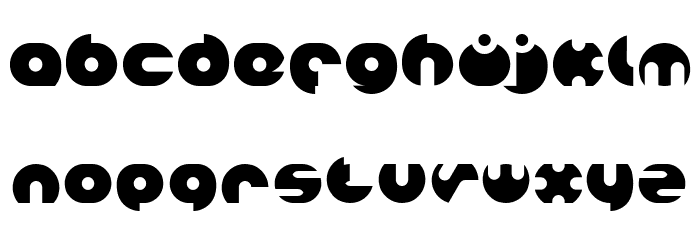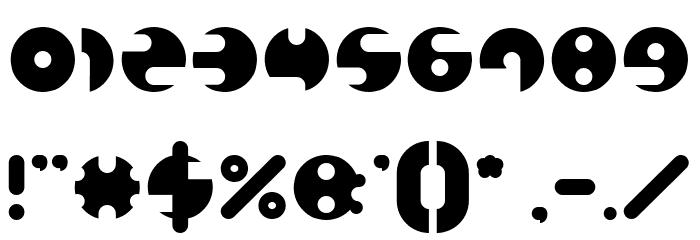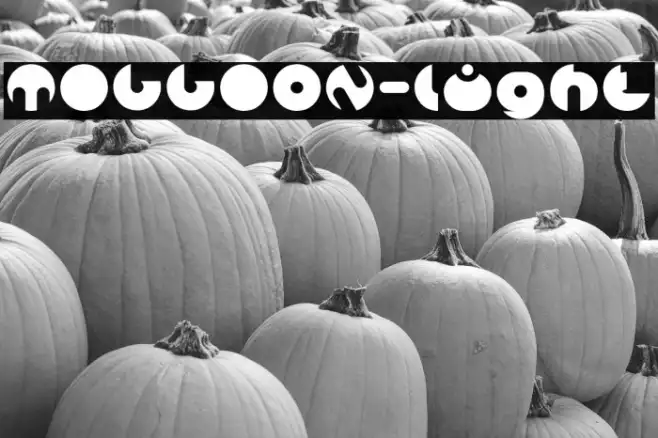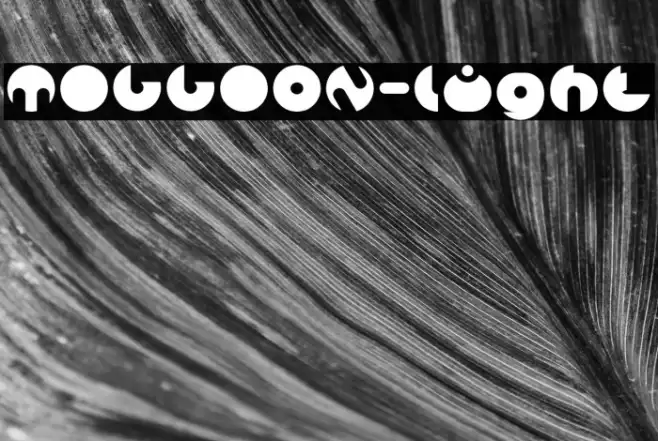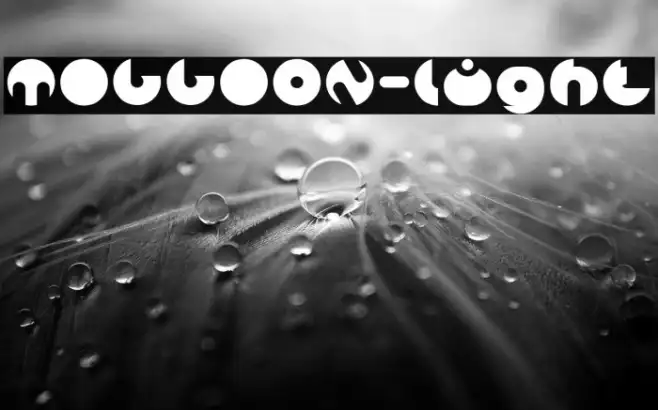
MILLION-light Font
This font exhibits a bold and futuristic design with a distinct geometric style. Each character is crafted with a combination of circular and angular elements, creating a unique and modern appearance. The uppercase and lowercase letters maintain a consistent visual theme, with rounded edges and cut-out sections that enhance its contemporary look. The numerals and special characters follow the same design principles, ensuring uniformity across the typeface. This font's striking appearance makes it ideal for projects that require a strong visual impact.
A bold, geometric font with a futuristic and modern design.
- Proposed Projects: Ideal for branding, posters, digital media, and any project needing a modern, eye-catching typeface.